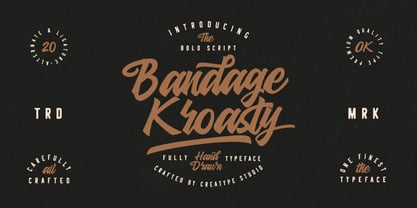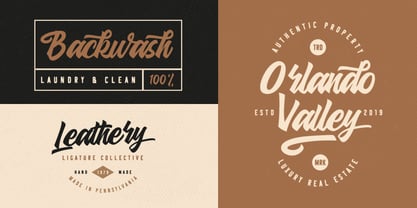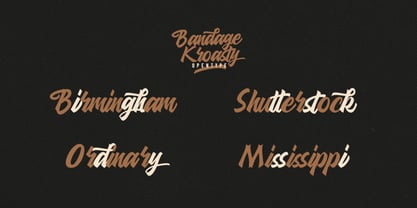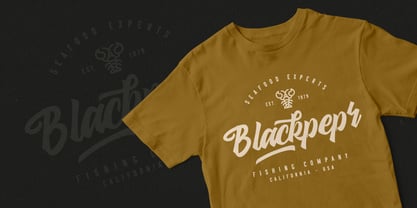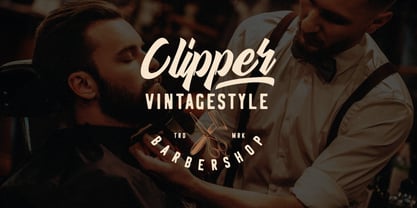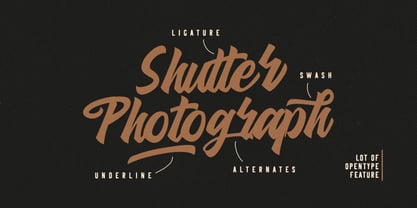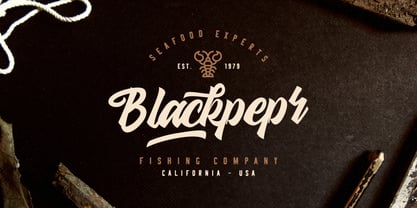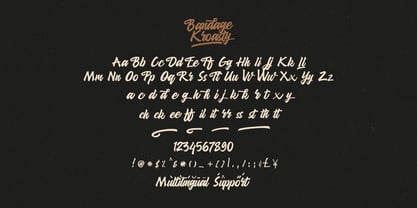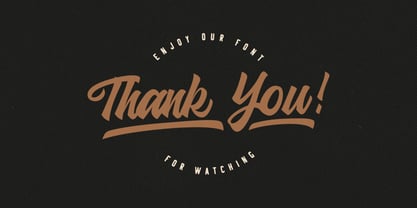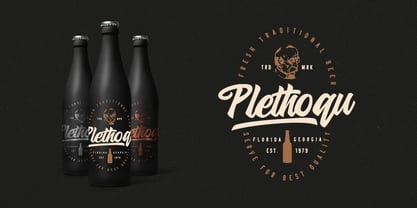
Bandage Kroasty
by Creatype Studio
The Bandage Kroasty Font Family was designed by Rian Rahardi and published by Creatype Studio. Bandage Kroasty contains 1 styles. More about this family
Bandage Kroasty isn’t just a typeface — it’s hand-drawn attitude in every stroke. Designed with flair and crafted for impact, this bold script font brings an unmistakable charm that’s perfect for branding, packaging, apparel, and vintage-inspired logos.
It’s bold. It’s expressive. It’s got swashes, ligatures, and a personality that makes every design feel custom-made. Whether you're designing for craft beer labels, barbershops, or retro-themed projects, Bandage Kroasty wraps your message in timeless confidence.
Designers: Rian Rahardi
Foundry: Creatype Studio